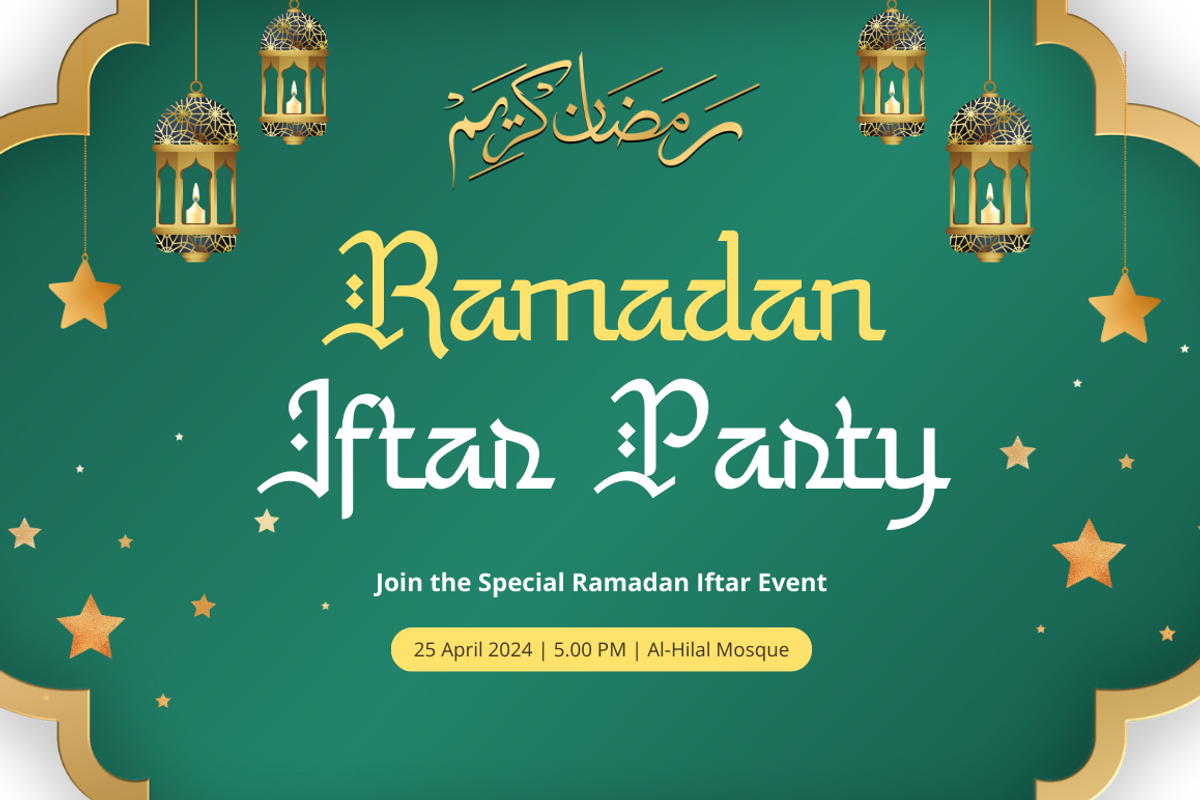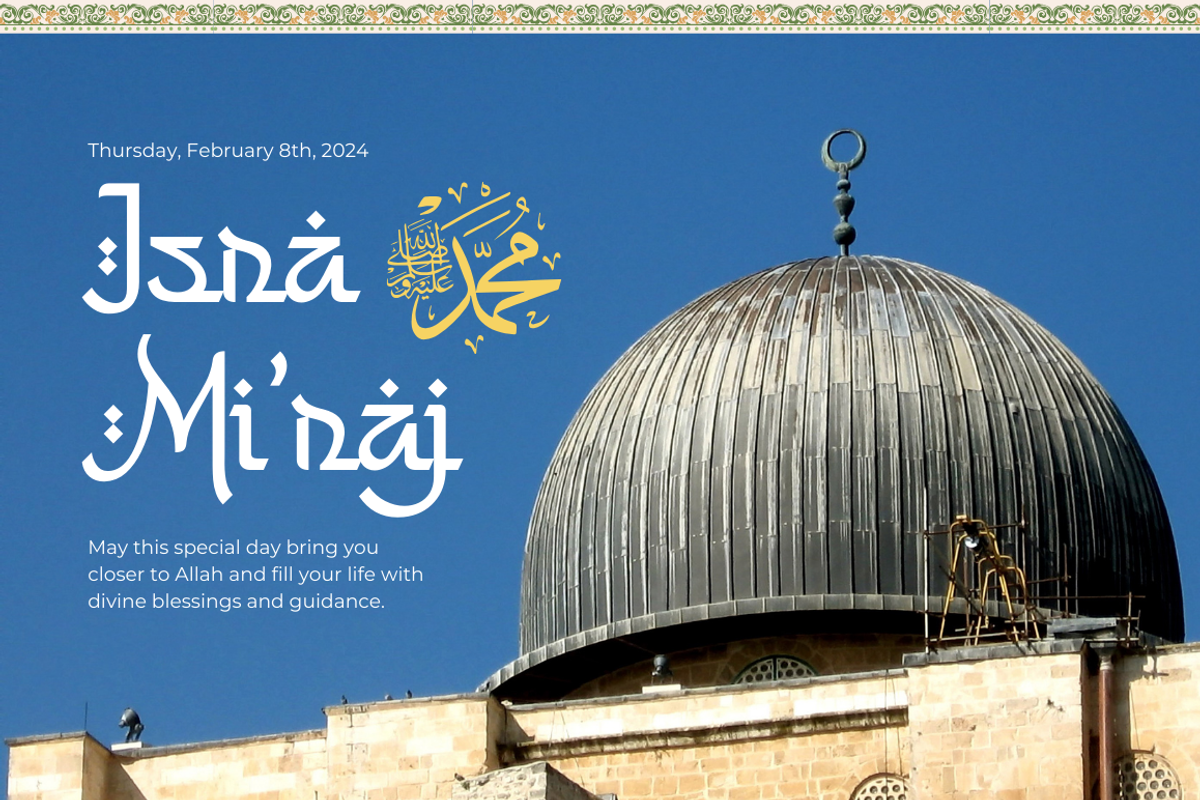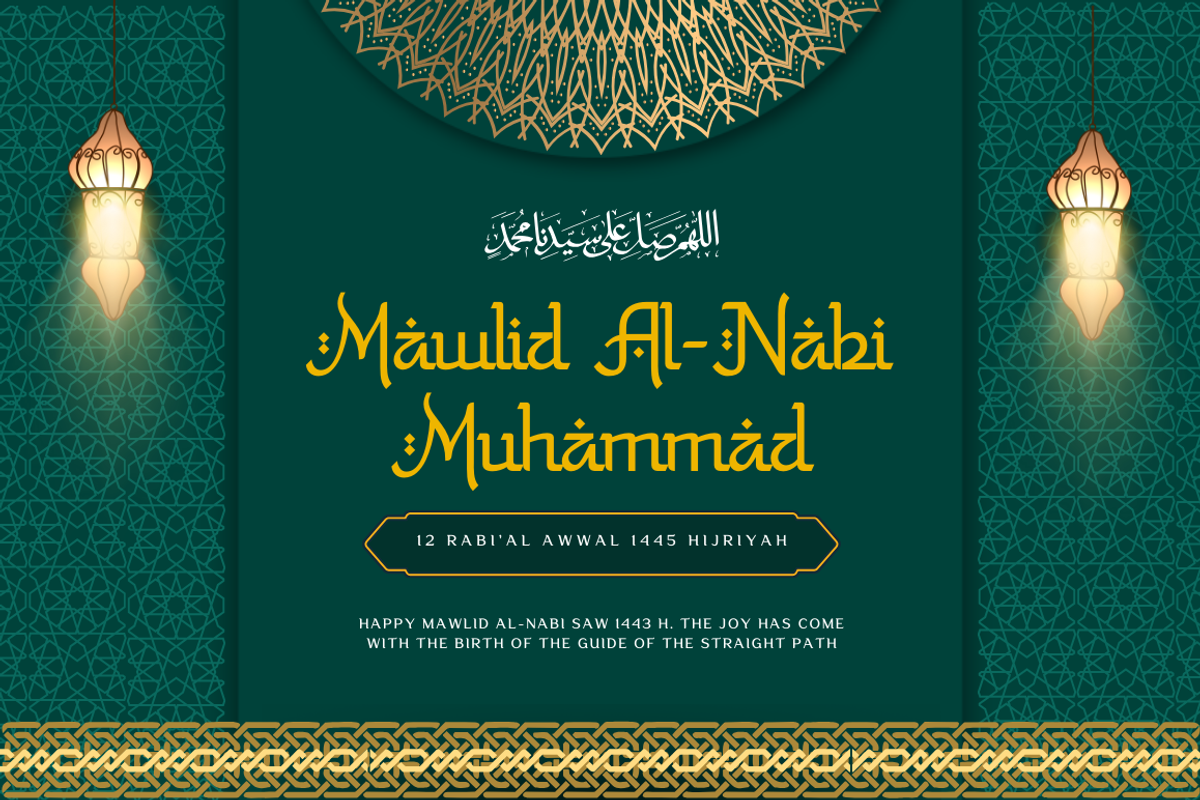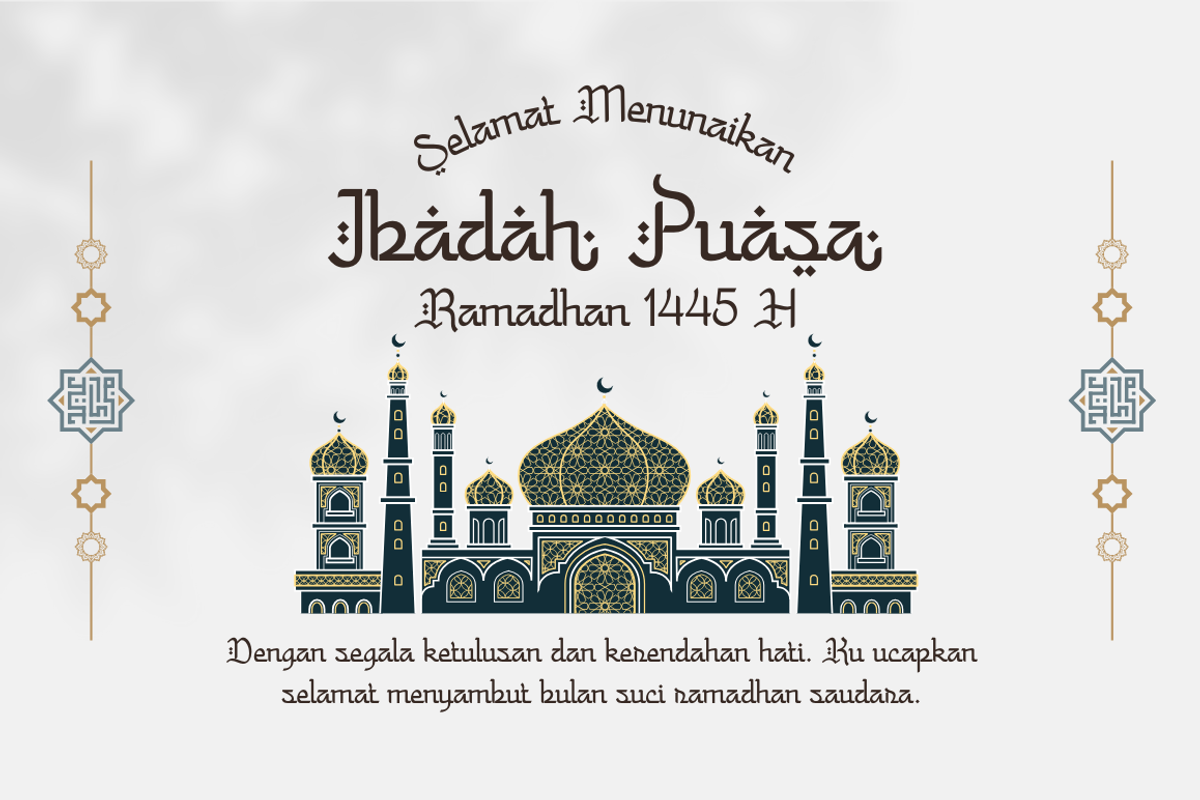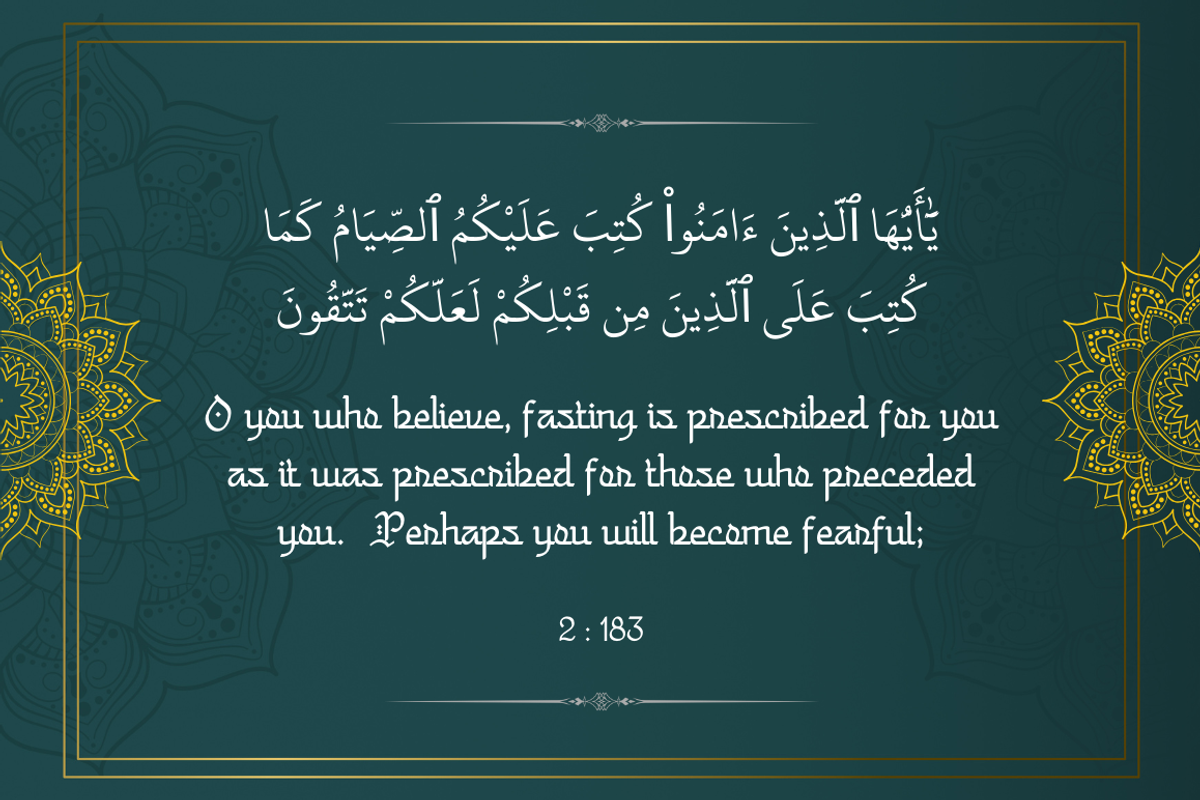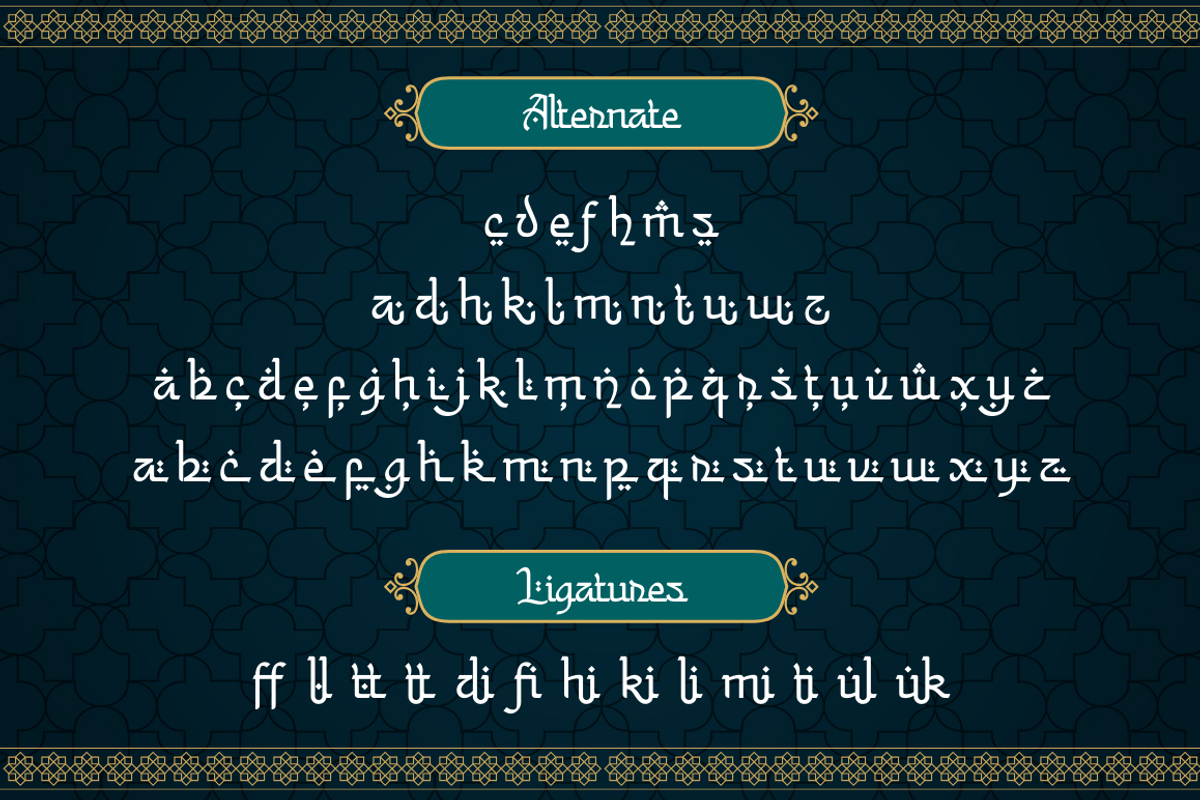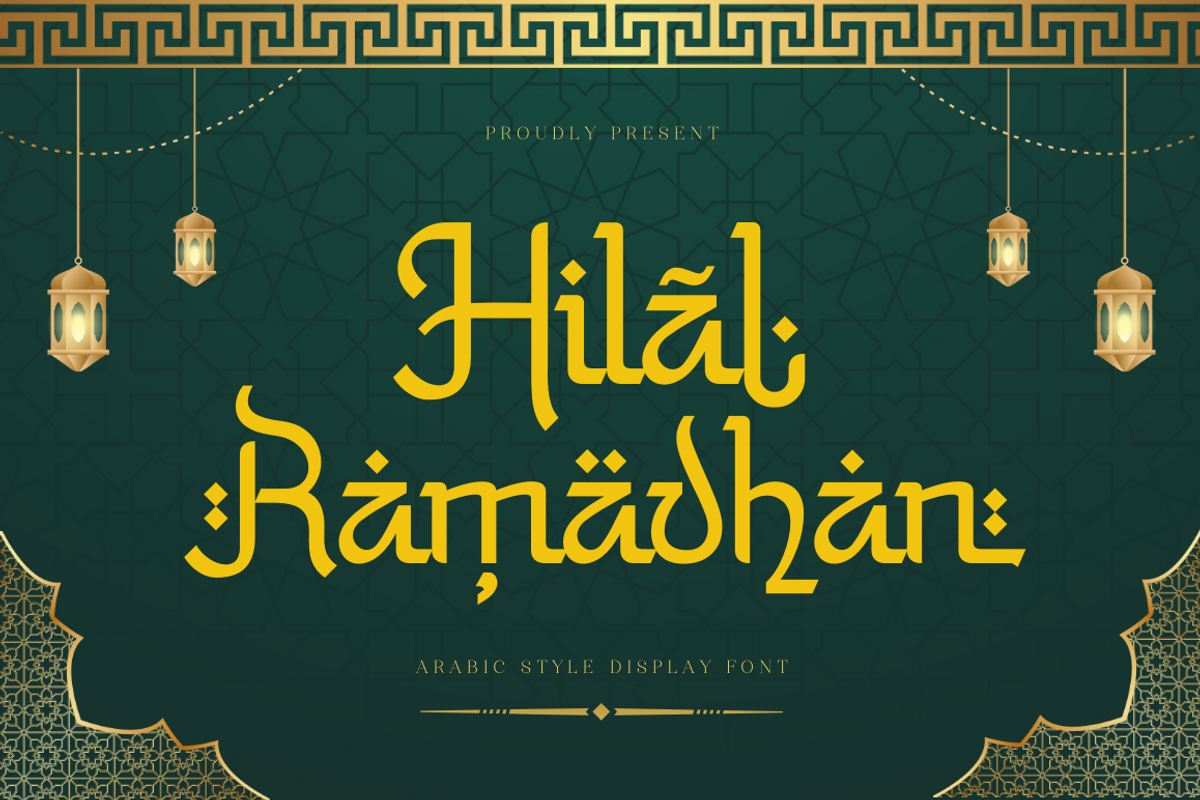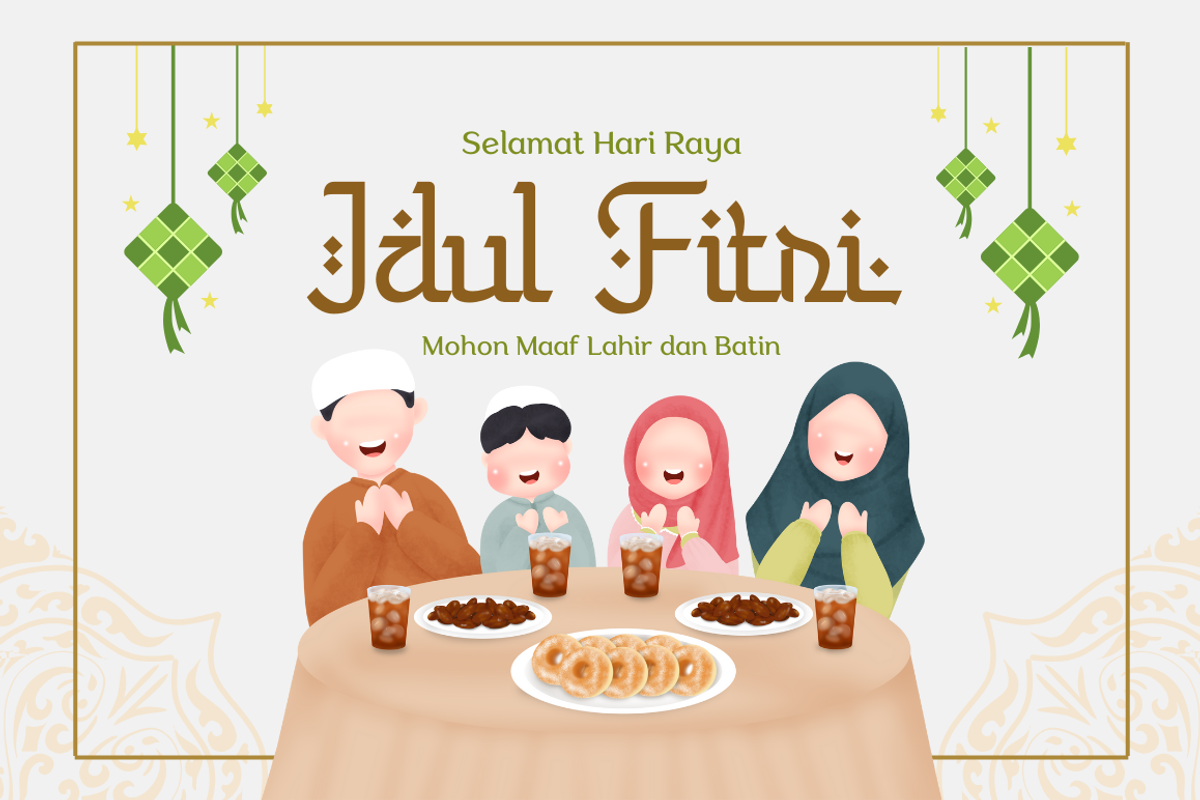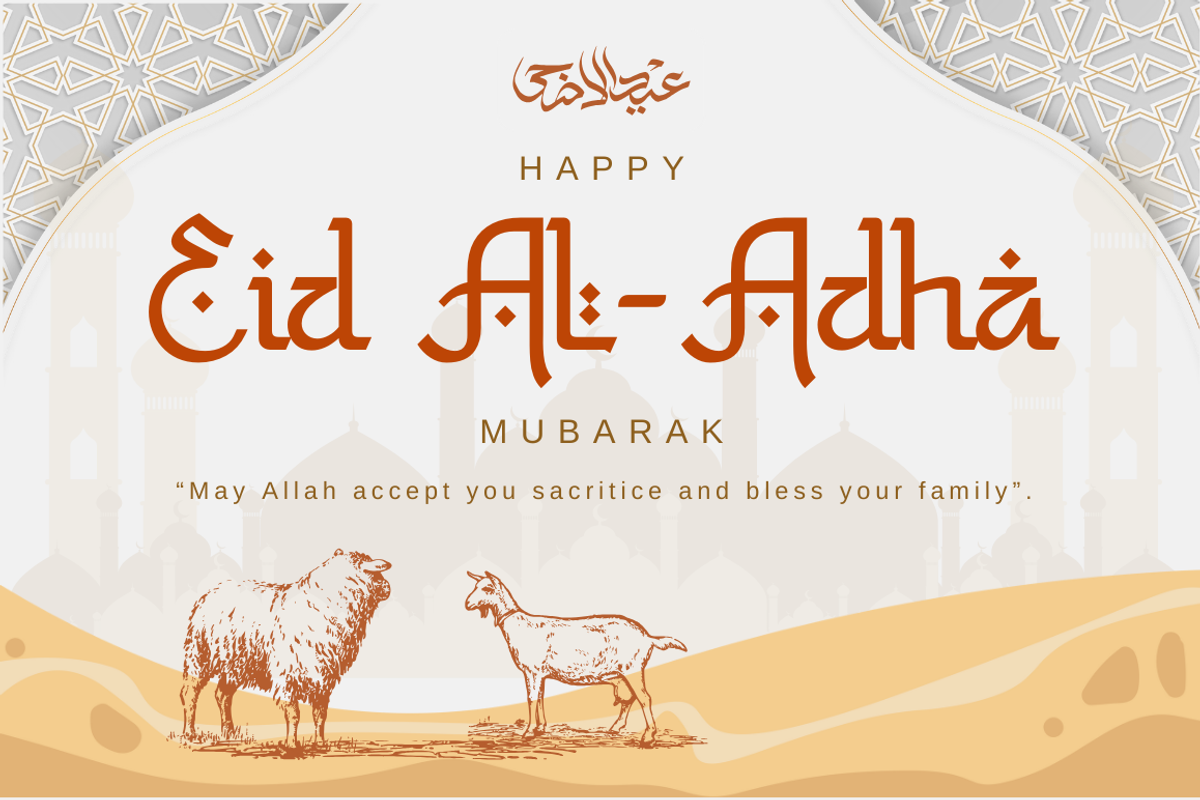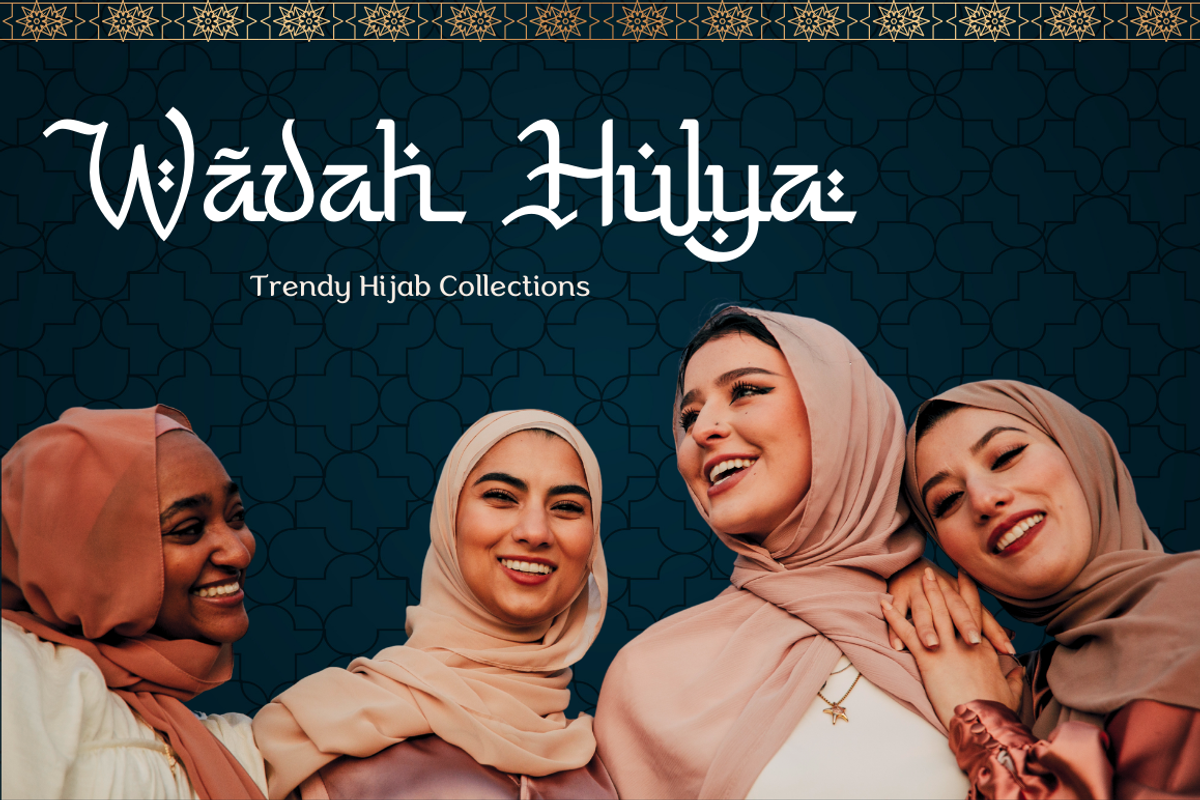
Hilal Ramadhan
Introducing “Hilal Ramadhan,” a font inspired by the sacred month of Ramadan. With its graceful letterforms and intricate details, this font captures the spirit of spirituality and reflection. Ideal for Ramadan-themed designs such as greeting cards, posters, or social media graphics, “Hilal Ramadhan” adds a touch of elegance and reverence to your projects, honoring the significance of this holy time. Let this font enhance your Ramadan-related creations with its timeless beauty and cultural significance.